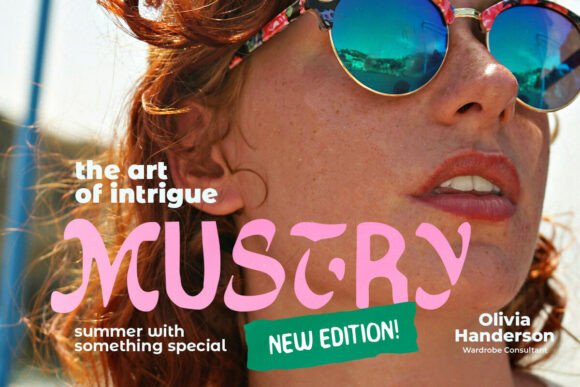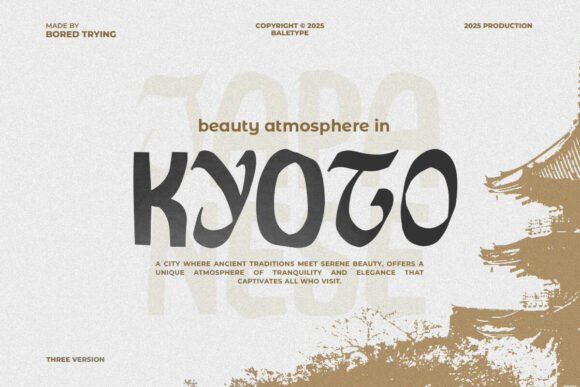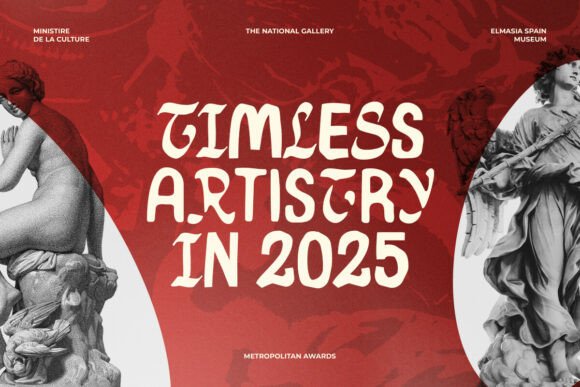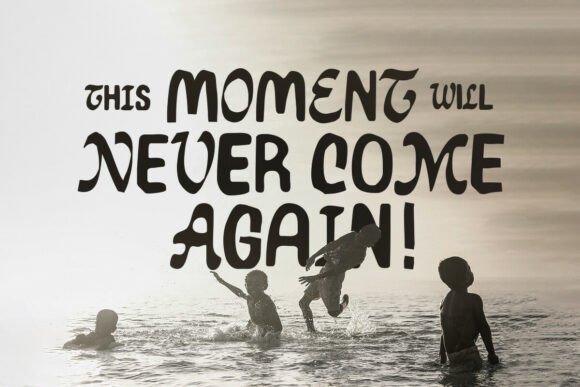
Bored Trying Font: A Unique Blend of Blackletter and Sans for Creative Projects
Are you tired of using the same old fonts for your creative projects? Look no further than the Bored Trying Font, a distinctive mixed font that combines the elegance of blackletter with the simplicity of sans serif. This innovative font is perfect for designers and crafters seeking to add a natural and organic touch to their branding, posters, quotes, and other media.
A Distinctive Font with a Handmade Look
The Bored Trying Font boasts a rough and handmade appearance, giving it a unique character that sets it apart from more traditional fonts. The blackletter uppercase letters exude a sense of sophistication and luxury, while the sans serif lowercase letters provide a clean and modern contrast. This blend of styles creates a visually appealing font that is sure to capture the attention of your audience.
Three Styles to Choose From
One of the standout features of the Bored Trying Font is its versatility. The font comes in three styles: Regular, Blurred, and Stencil. The Regular style is perfect for everyday use, providing a clear and legible text that is easy to read. The Blurred style adds a touch of softness and subtlety, creating a dreamy and ethereal effect. The Stencil style, on the other hand, gives the font a bold and edgy look, perfect for making a statement.
Multi-Language Support
In today’s globalized world, it’s essential to have a font that can support multiple languages. The Bored Trying Font rises to the challenge, offering support for a wide range of languages. Whether you’re working on a project that requires English, Spanish, French, or any other language, this font has got you covered.
The Bored Trying Font is an excellent choice for a variety of creative projects, including:
- Branding: Use the Bored Trying Font to create a unique and memorable brand identity that stands out from the crowd.
- Posters: Add a touch of elegance and sophistication to your posters with this distinctive font.
- Quotes: Use the Bored Trying Font to create inspiring and thought-provoking quotes that resonate with your audience.
- Packaging: Add a natural and organic touch to your packaging with this handmade font.
Why Choose the Bored Trying Font?
So why choose the Bored Trying Font over other fonts on the market? Here are just a few reasons:
- Unique style: The Bored Trying Font offers a distinctive blend of blackletter and sans serif styles that sets it apart from other fonts.
- Versatility: With three styles to choose from, you can use the Bored Trying Font for a wide range of creative projects.
- Multi-language support: This font supports multiple languages, making it perfect for global projects.
- Handmade look: The rough and handmade appearance of the Bored Trying Font adds a touch of natural and organic charm to your projects.
In conclusion, the Bored Trying Font is an excellent choice for designers and crafters seeking a unique and versatile font for their creative projects. With its distinctive blend of blackletter and sans serif styles, three styles to choose from, and multi-language support, this font is perfect for adding a natural and organic touch to your branding, posters, quotes, and other media. So why settle for a boring, generic font when you can try something new and exciting with the Bored Trying Font?